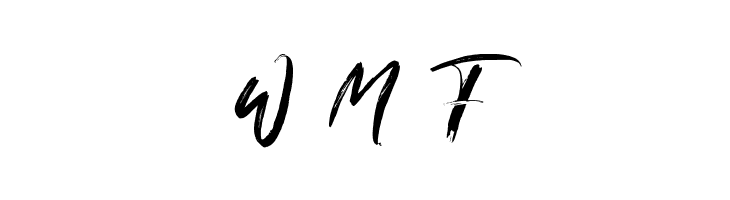
A whimsical font with letters formed by cat illustrations, ideal for decorative use.
Playful hand-drawn cat illustrations with varied expressions.
Primitive, cave-art inspired decorative font with hand-drawn figures.
A font inspired by ancient cave paintings, featuring primitive and expressive symbols.
An artistic, cave painting-inspired decorative font with bold, abstract characters.
A playful, handwritten font with bold, rounded strokes and a casual, friendly style.
A playful and flowing script font with elegant curves and smooth strokes.
A decorative font with intricate, Mayan-inspired patterns.
A graceful and elegant script font with fluid, continuous strokes.
An elegant, flowing script font with a cursive, handwritten style.
A playful, hand-drawn font with a chalk-like, informal style.
A bold, expressive brush script font with dynamic, fluid strokes.
A classic serif font with elegant and refined letterforms, offering a timeless look.
A bold, classic serif font with strong, pronounced strokes.
A classic serif font with elegant, traditional features and moderate contrast.
A bold, classic serif font with strong, elegant strokes.
A bold, high-contrast serif font with a modern and dramatic style.
A bold, flame-inspired font with dynamic, jagged edges.
A dot-based, pixelated font with a retro digital aesthetic.
A bold, flame-inspired font with a dynamic and energetic appearance.
A rugged, distressed font with jagged, hand-drawn style.
A dynamic, oblique font with bold, angular strokes and a modern, edgy style.
A bold, distressed font with a grunge, textured style.
A stylish and elegant script font with fluid, connected letterforms.
A classic serif font with medium contrast and elegant style.
A classic, oblique serif font with a Renaissance-inspired elegance.
A classic serif font with elegant, Renaissance-inspired design and moderate contrast.
A classic, oblique serif font with Renaissance elegance and moderate contrast.